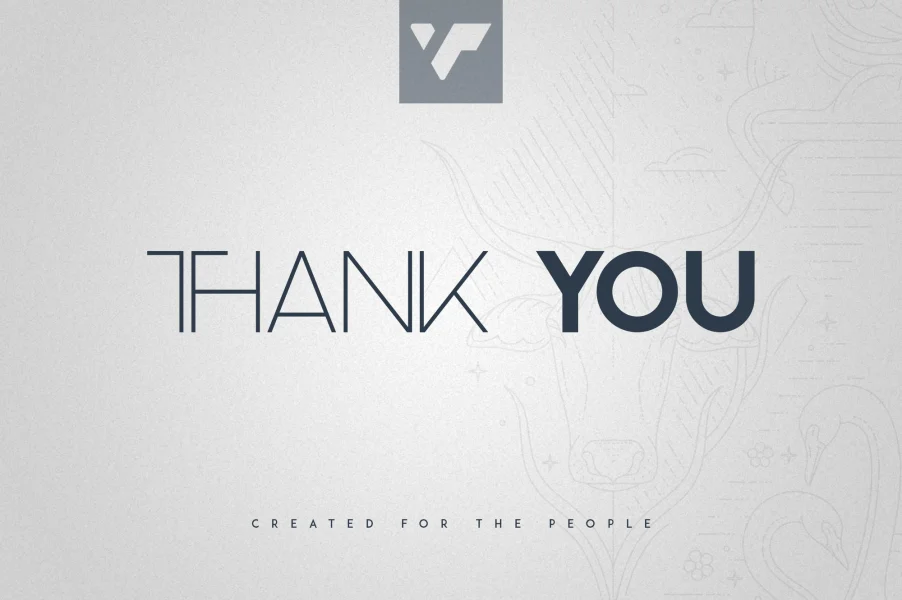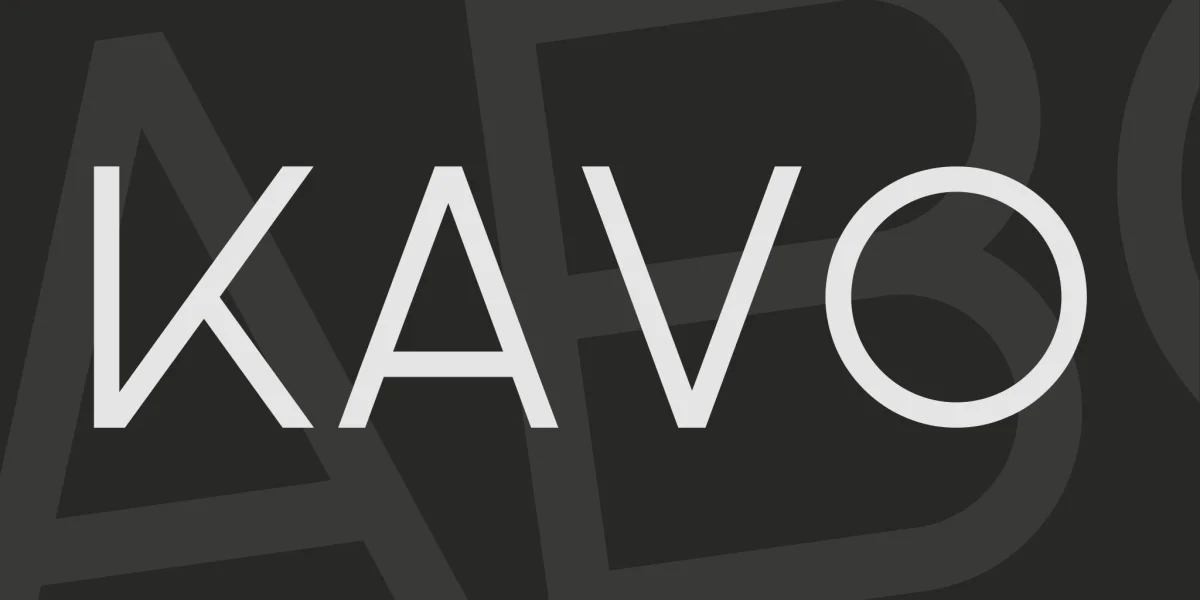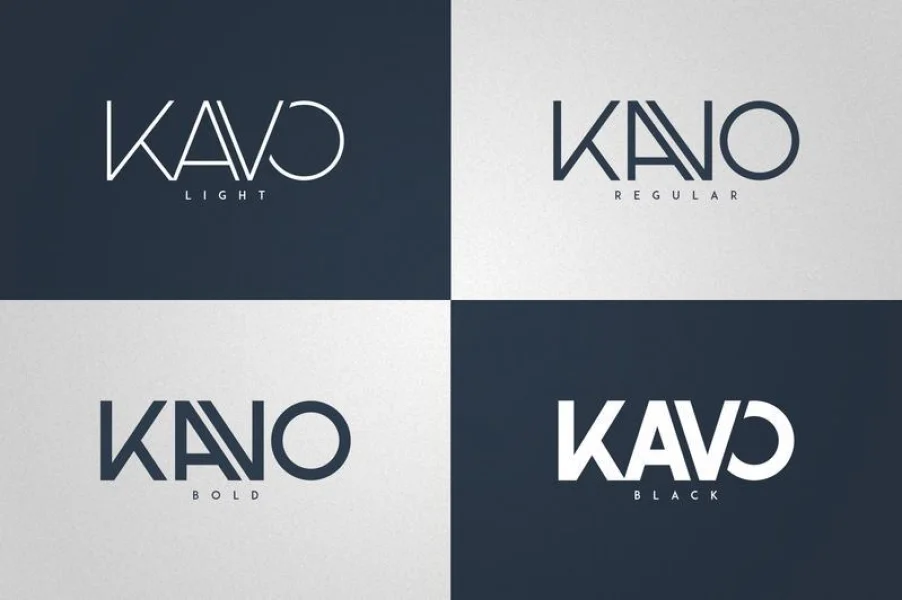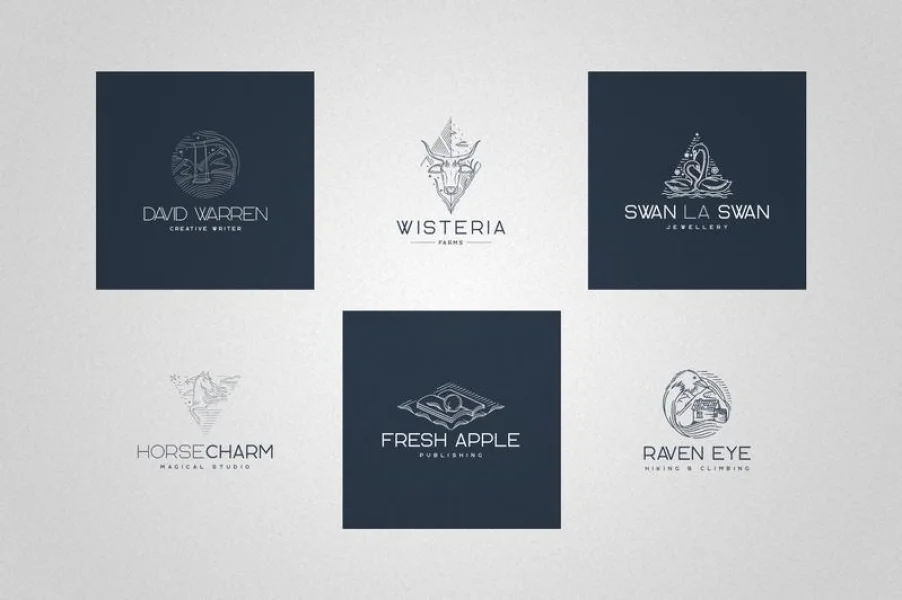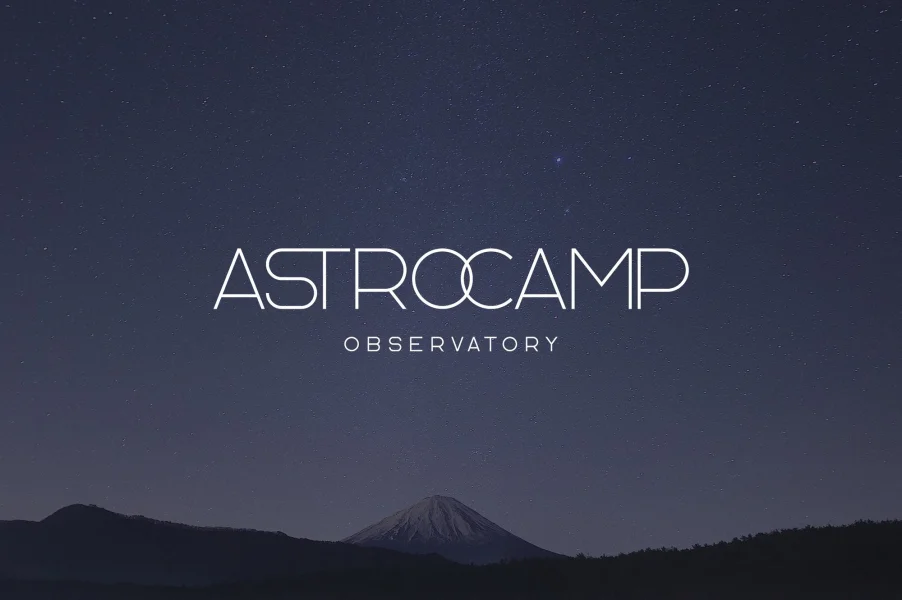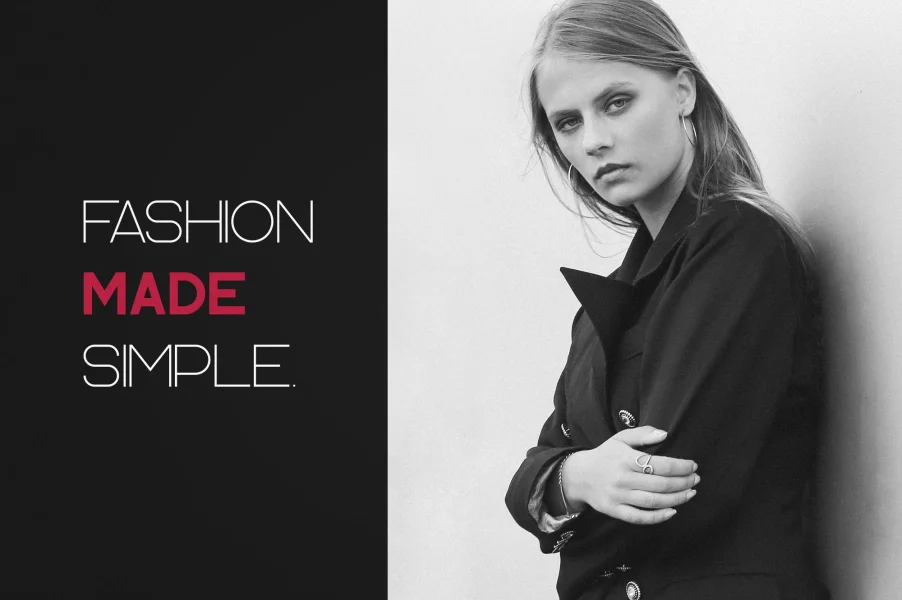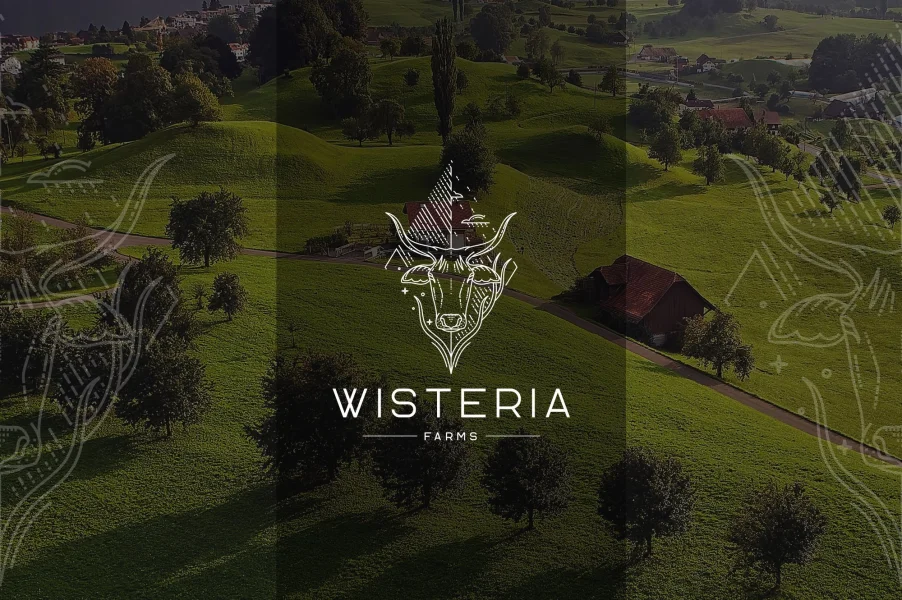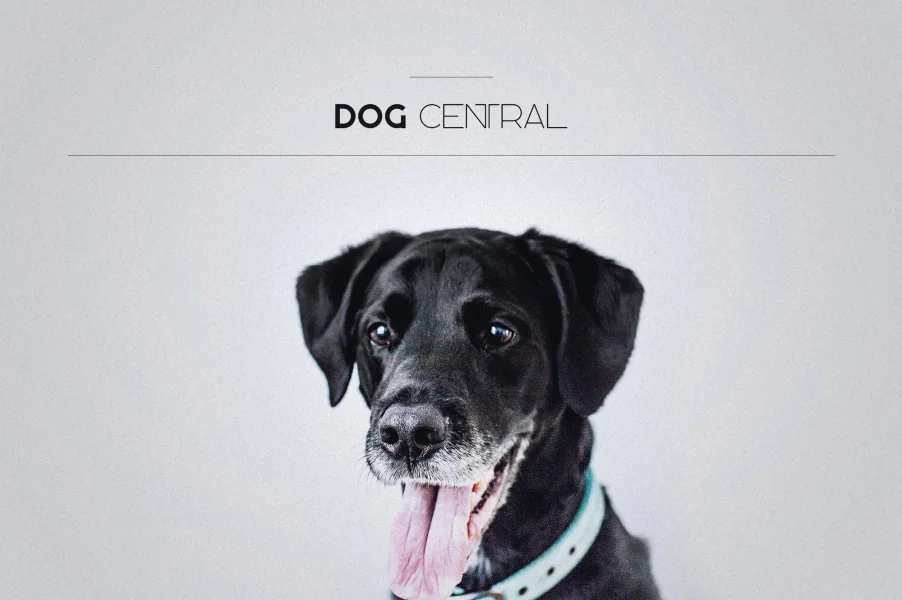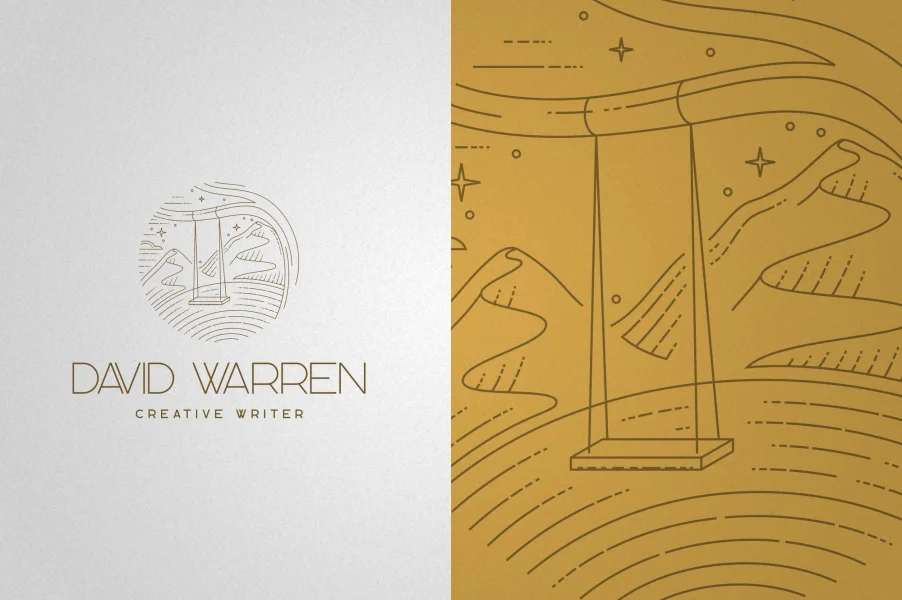
Kavo is clean, modern typeface with 4 weight, ligatures, 6 awesome vector designs, 6 logo templates and multilingual support. It's a very versatile font that works great in large and small sizes.
Kavo is perfect for branding projects, home-ware designs, product packaging, magazine headers - or simply as a stylish text overlay to any background image.